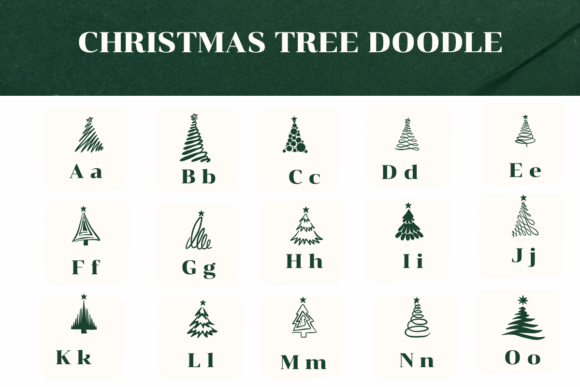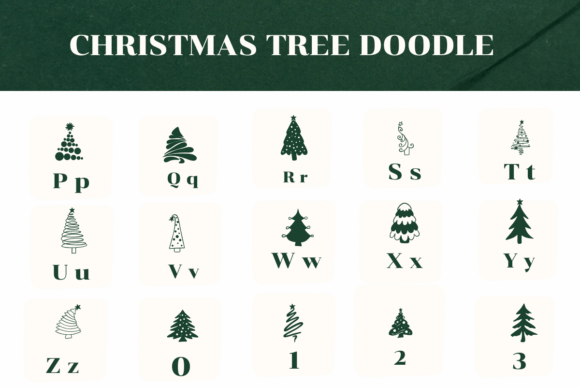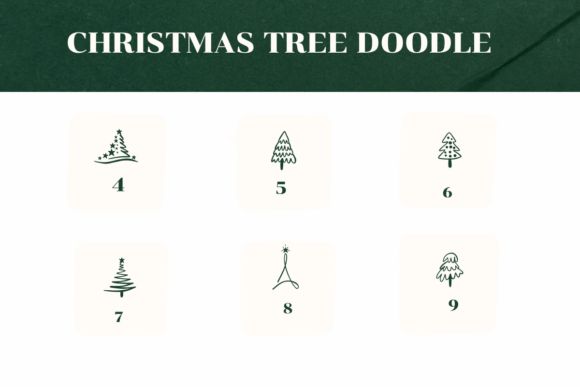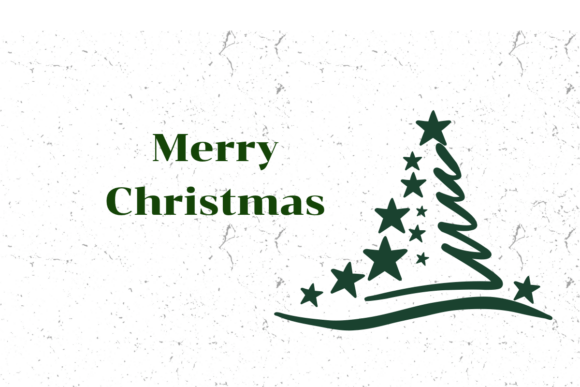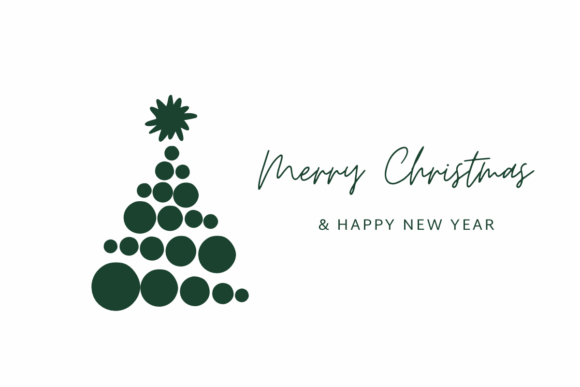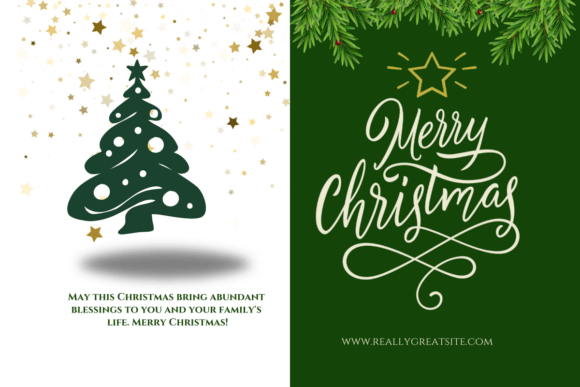
Deck the Halls with Christmas Tree Doodle Font
Are you looking for a fun and festive font to add to your winter and Christmas-themed projects? Look no further than the Christmas Tree Doodle Font! This adorable dingbats font is sure to bring a touch of holiday cheer to your designs, crafts, and more.
What is Christmas Tree Doodle Font?
Christmas Tree Doodle Font is a unique and playful font that features illustrations of Christmas trees, complete with ornaments, lights, and a star on top. Each character in the font is a separate doodle, making it perfect for adding a personal touch to your projects. The font is available in a variety of formats, making it easy to use in a range of applications, from digital designs to handmade crafts.
Why Use Christmas Tree Doodle Font?
There are many reasons to use Christmas Tree Doodle Font in your projects. Here are just a few:
- Festive and Fun: This font is the perfect way to add a touch of holiday cheer to your designs. The cute and colorful illustrations are sure to put a smile on anyone’s face.
- Versatile: Christmas Tree Doodle Font can be used in a wide range of projects, from digital designs to handmade crafts. It’s perfect for use in holiday cards, gift tags, and more.
- Unique: The Christmas Tree Doodle Font is a one-of-a-kind font that is sure to make your projects stand out. The illustrations are original and unique, making it a great way to add a personal touch to your designs.
- Mix and Match: Mix and match the characters in the font to create unique and personalized designs. Use different colors, patterns, and textures to make your designs truly special.
- Experiment with Colors: Don’t be afraid to experiment with different colors and patterns. The font looks great in traditional holiday colors, such as red and green, but it also looks great in more modern colors, such as turquoise and coral.
- Add Texture: Add texture to your designs by using different patterns and textures. The font looks great with a rustic or vintage feel, so try adding some texture to give it a more handmade look.
- Combine with Other Fonts: Combine Christmas Tree Doodle Font with other fonts to create a unique and personalized look. Try pairing it with a bold, sans-serif font for a fun and modern look.